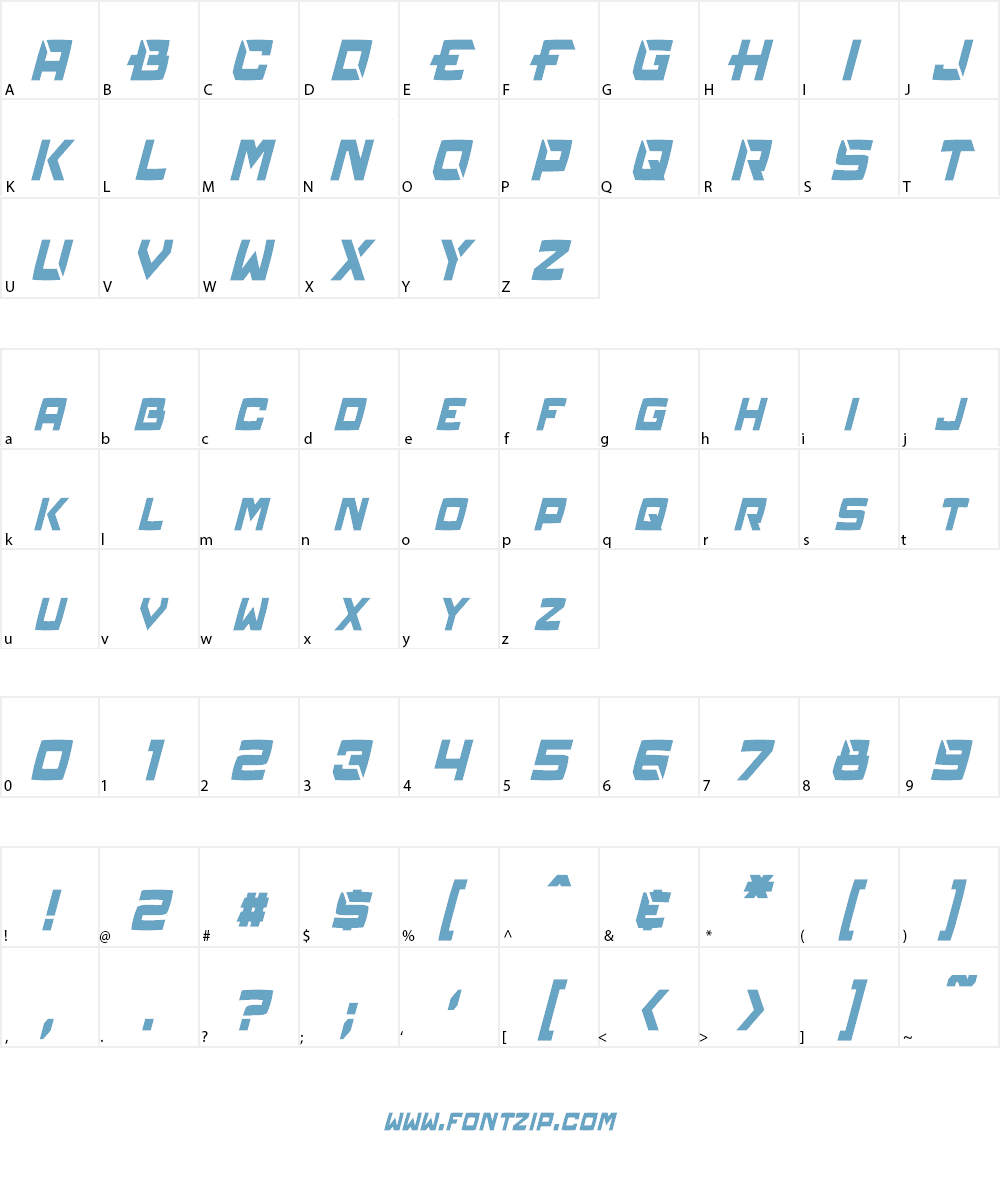
A bold, techno-styled font based on the logo of Hasbro's "Contruct-Bots" line. Includes full alphabet, European extensions, punctuation, and euro. Left and right braces replaced with the Autobot and Decepticon insignia, respectively. Includes Condensed and Italic versions.